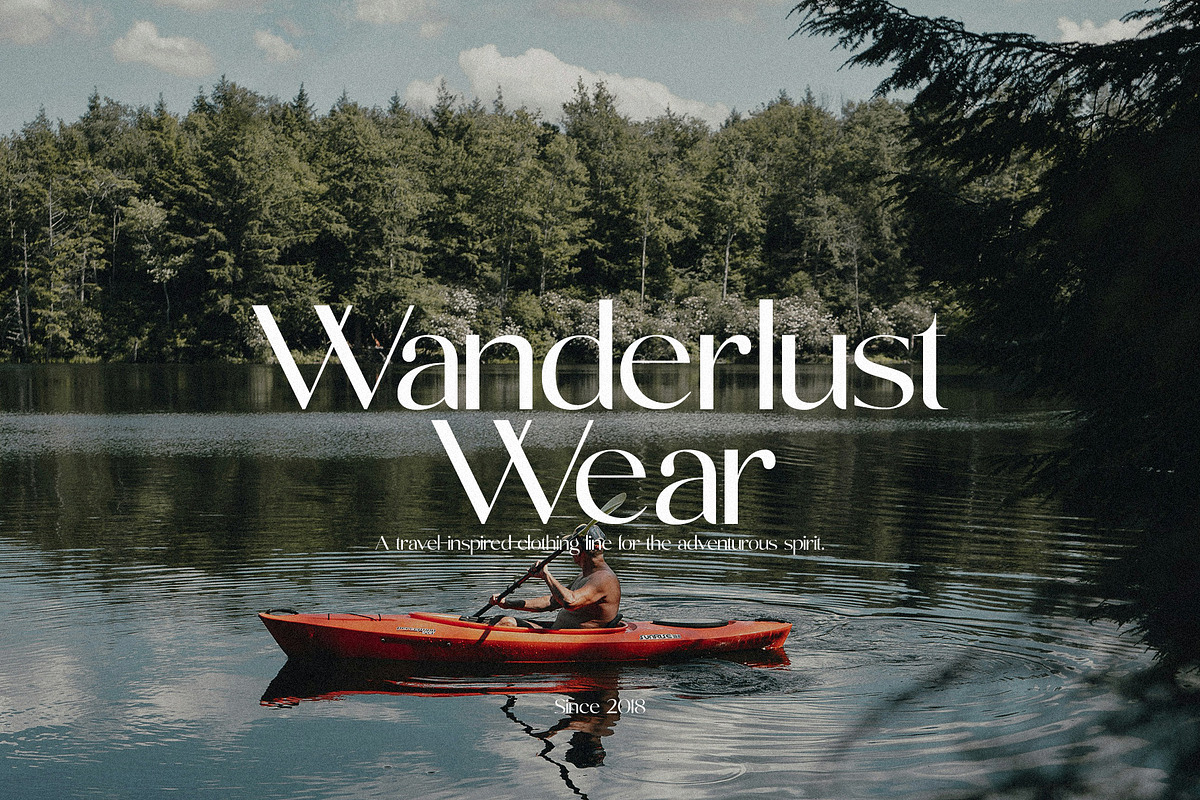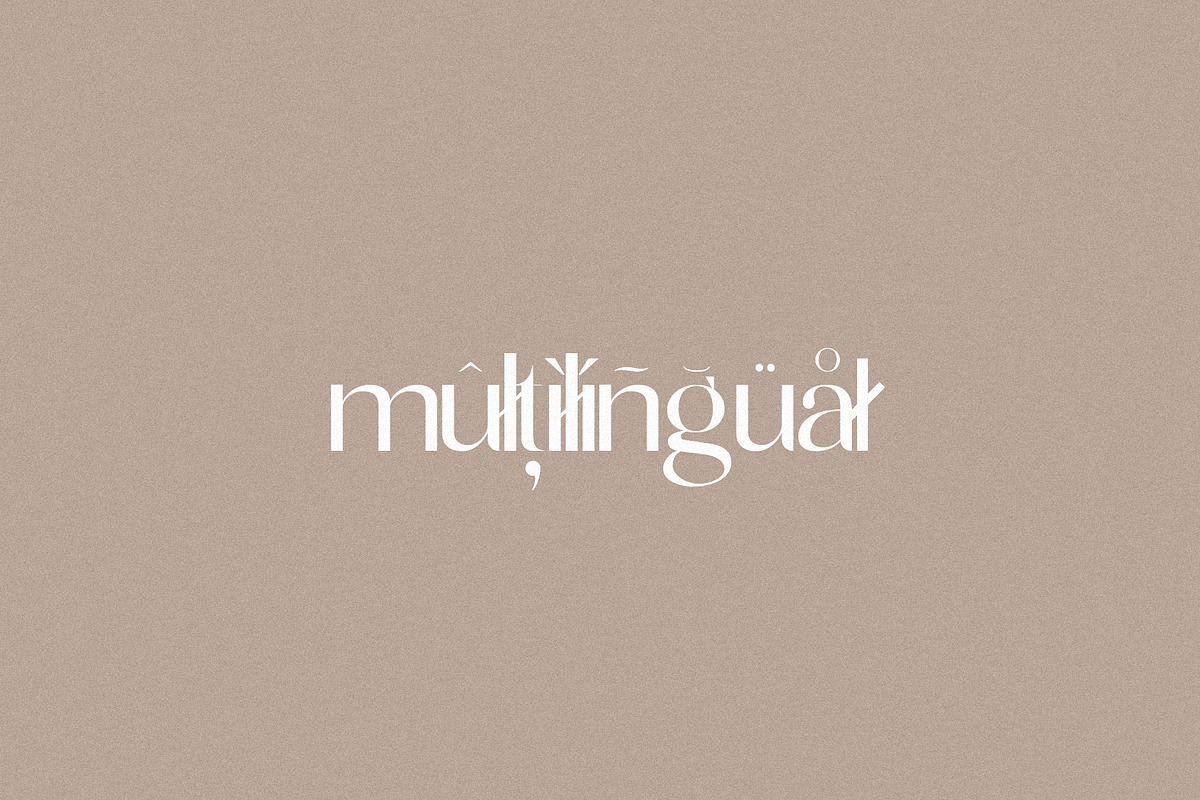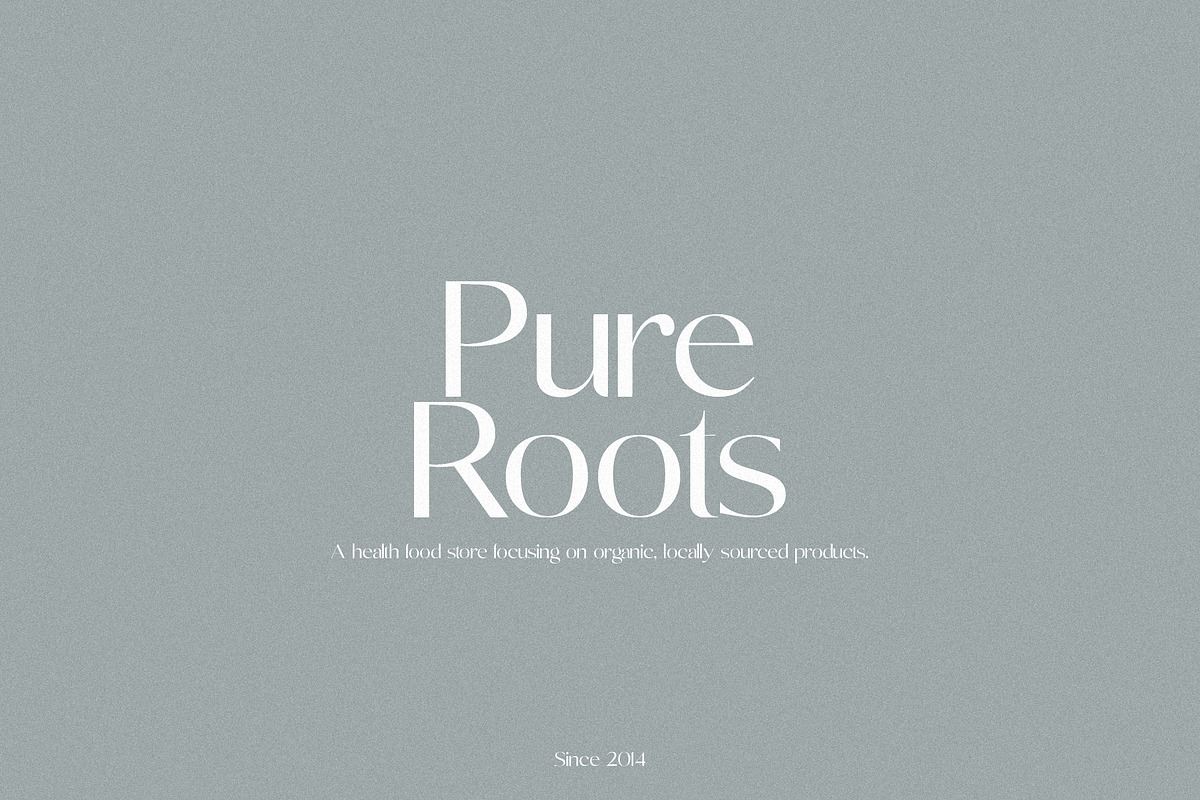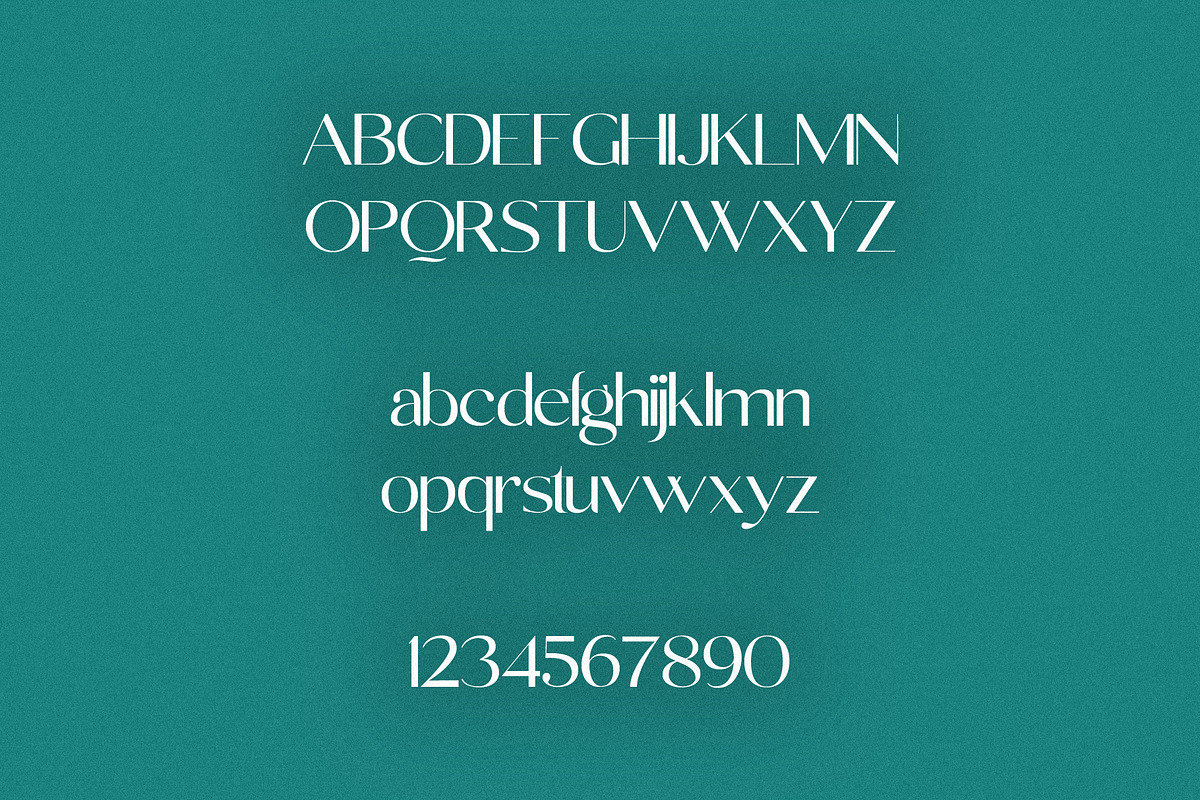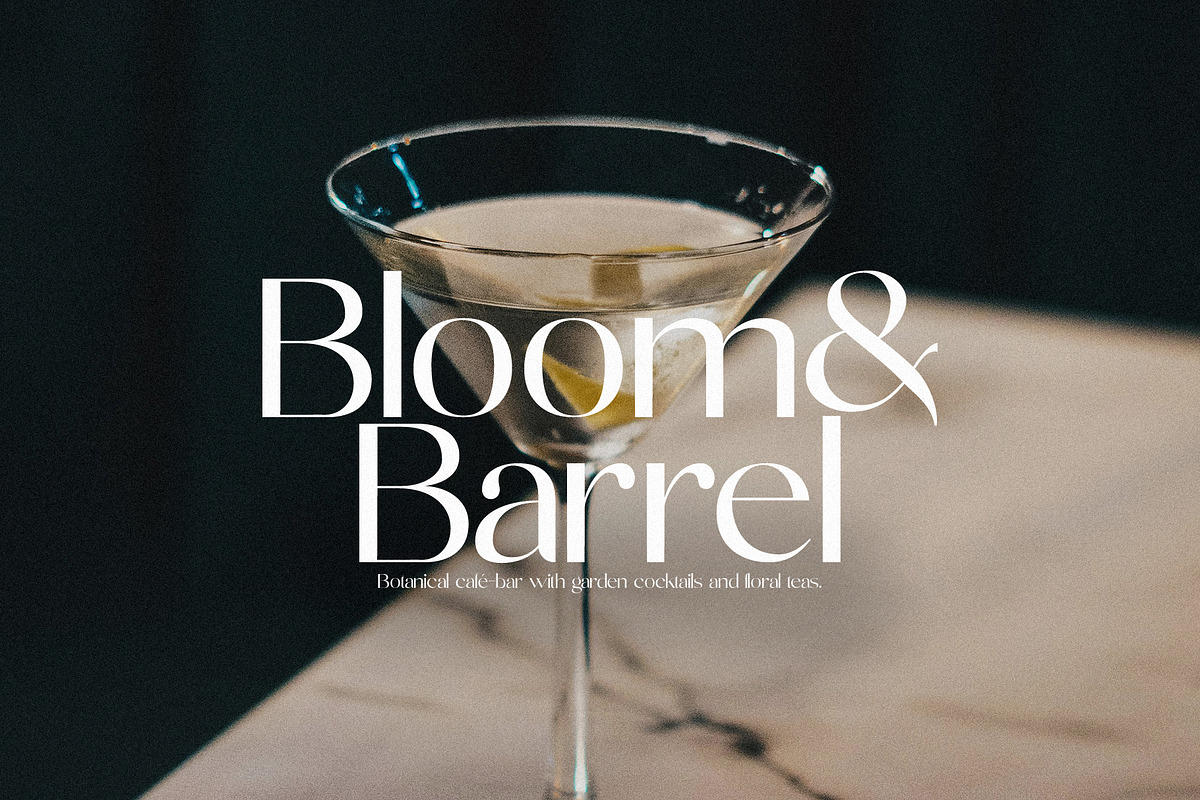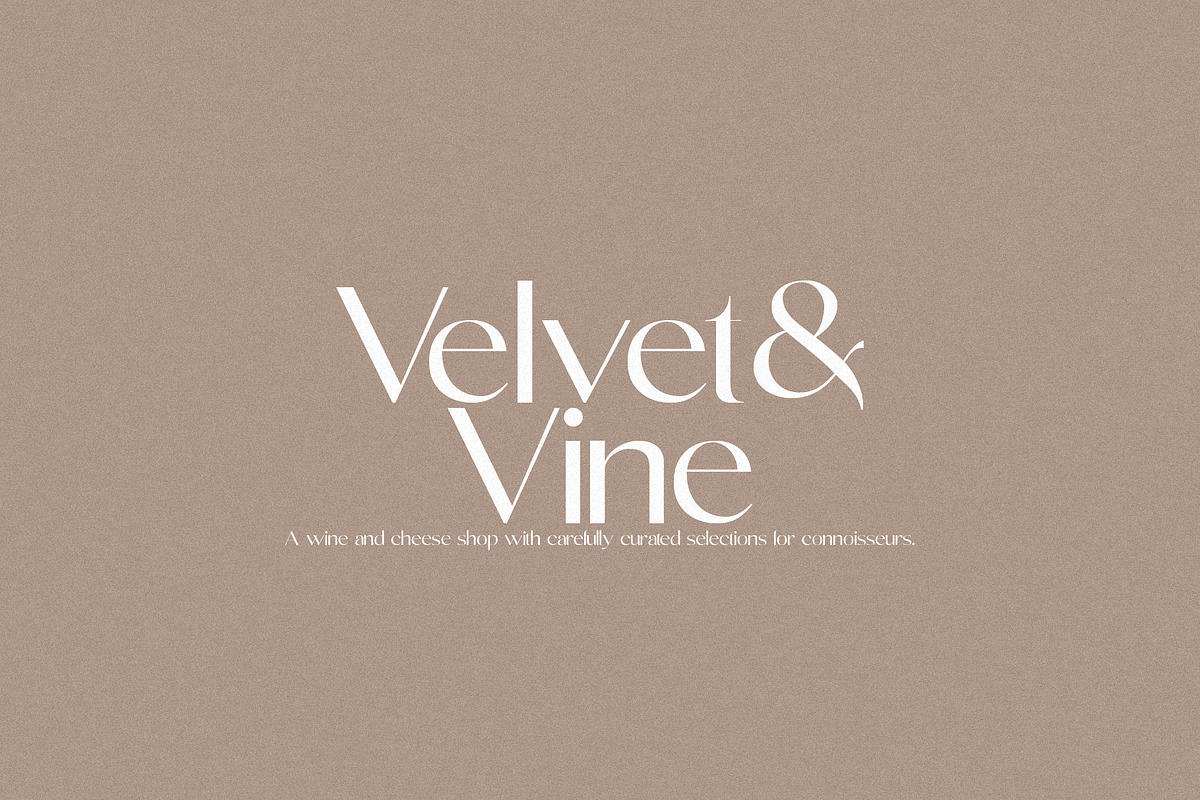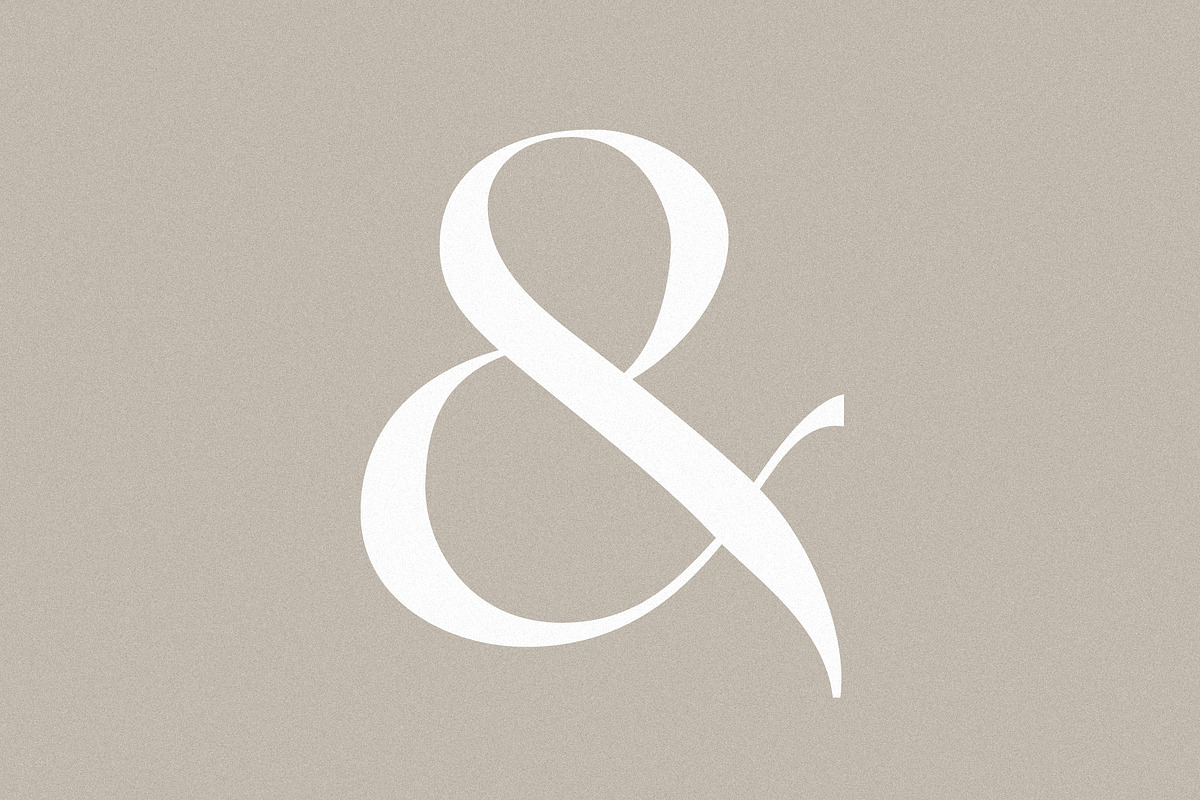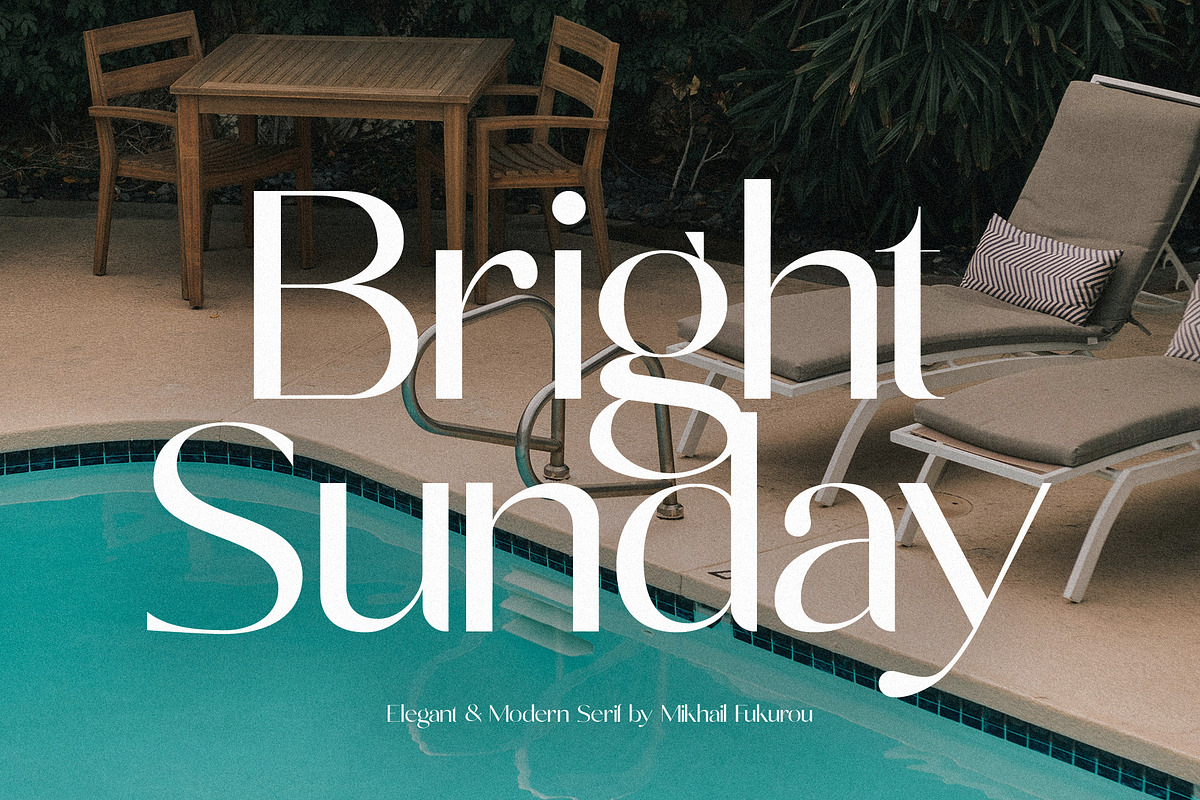
Bright Sunday - Summer Sans Serif
Bright Sunday - Summer Sans Serif is a modern, playful typeface designed to evoke a relaxed, sunny vibe perfect for summer-themed projects. It features clean lines with a casual, hand-drawn feel, making it ideal for posters, social media graphics, branding, and invitations. The font blends readability with a fun, carefree aesthetic.
Bright Sunday features:
- Letters
- More than 250+ glyphs